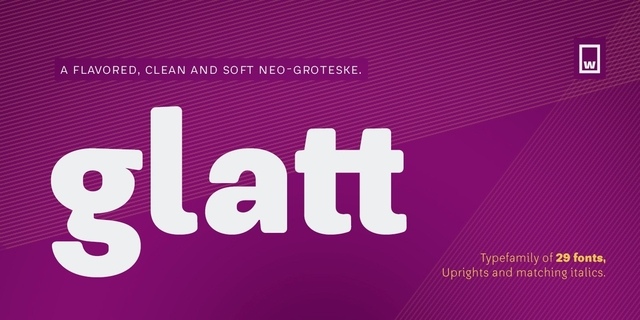
Glatt Pro Font
Glatt Pro Font is perfect for premium corporate branding, professional service communications, sleek product packaging, modern architectural signage, executive presentations, and sophisticated digital interfaces. This refined typeface excels in luxury tech companies, high-end consulting firms, premium lifestyle brands, and any application where polished minimalism and contemporary elegance create lasting impressions of quality and precision.
What makes Glatt Pro Font so exciting is its exceptional balance of geometric precision with subtle humanist warmth that creates optimal readability while maintaining a distinctly professional character. The font features smooth, refined letterforms with carefully optimized spacing that enhances both digital performance and print quality. Its clean sophistication makes it perfect for organizations seeking typography that communicates competence, reliability, and contemporary excellence.
Glatt Pro Font comes in a comprehensive professional family including Thin, Light, Regular, Medium, Bold, and Black weights. Each style features complete uppercase and lowercase character sets, professional symbols, refined numerals, and contemporary punctuation marks. The font family also includes condensed variants, italic styles, and alternative characters that provide designers with extensive flexibility for complex brand and communication systems.
This outstanding typeface represents the evolution of professional typography where functionality seamlessly meets aesthetic sophistication. Glatt Pro Font Free Download empowers organizations and designers to create communications that embody modern professionalism and technical excellence. Whether you're developing corporate identity systems, designing premium product interfaces, or creating materials for forward-thinking businesses, this font delivers unmatched versatility with contemporary distinction.
The font's professional elegance makes it particularly effective for technology companies, professional services, premium brands, and innovative organizations. Its exceptional performance ensures that Glatt Pro Font excels across all applications while maintaining its distinctive sophisticated character. The font's ability to communicate reliability and modern competence makes it an essential tool for any project requiring typography that represents the highest standards of contemporary professional communication and design excellence.